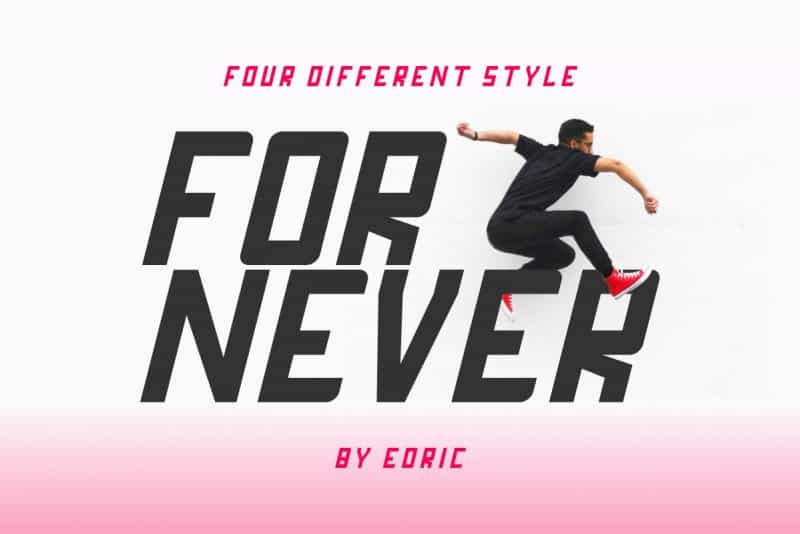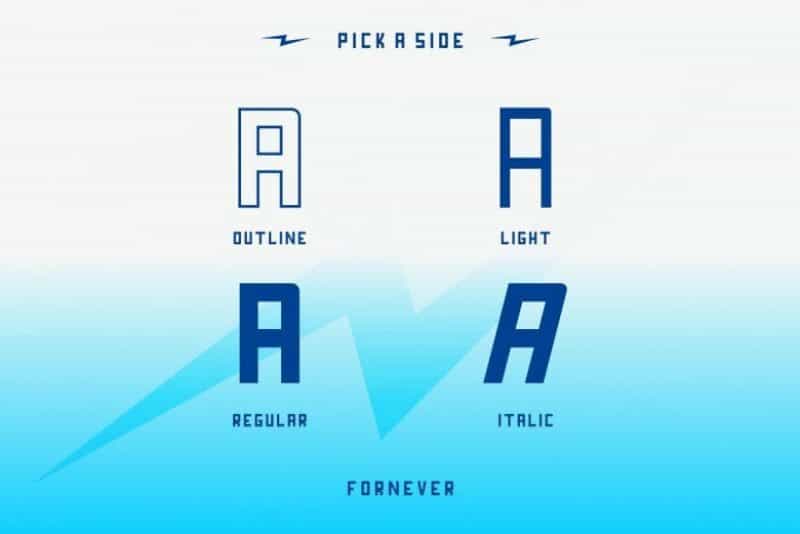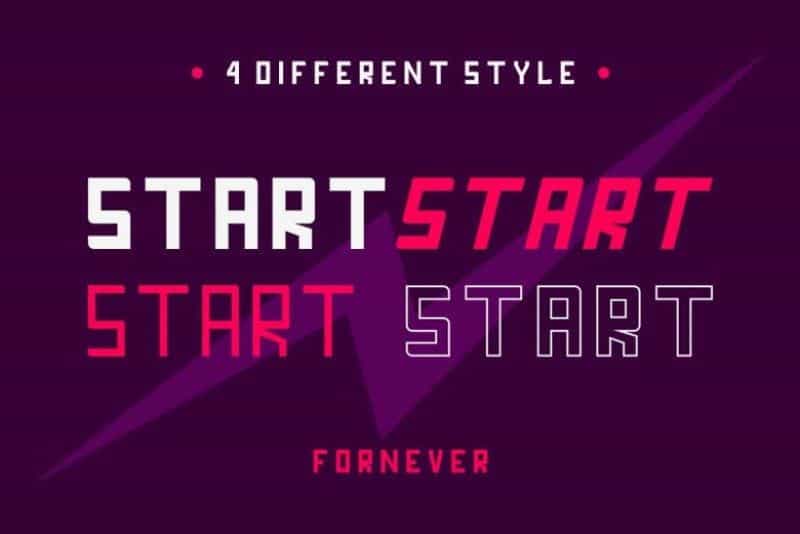
Hi Everyone! Please meet our newest font : FORNEVER! It comes with FOUR styles: Regular, Italic, Stroke and Light. It’s a sans serif font family. It is great for many cases: poster, logo, flyer, branding, signage, branding, brochure, billboard, music cover, magazine, side ads, neon-box, packaging, sports etc.